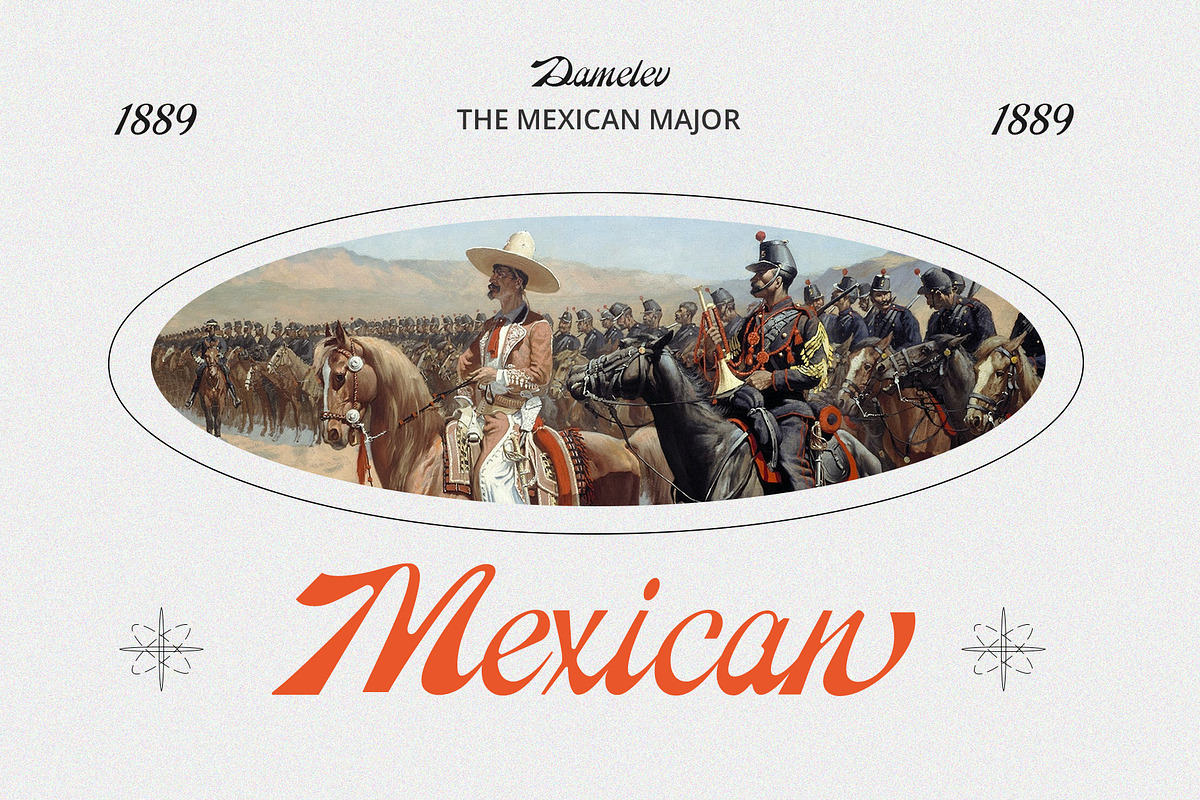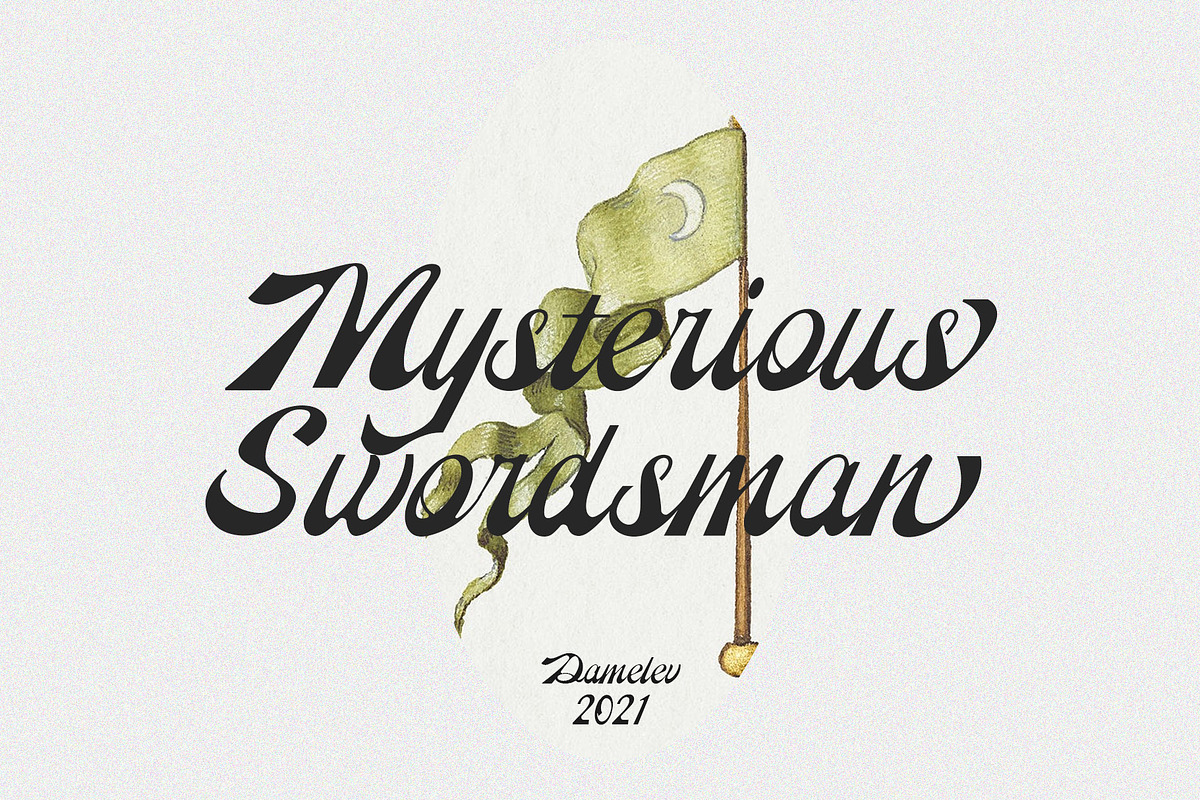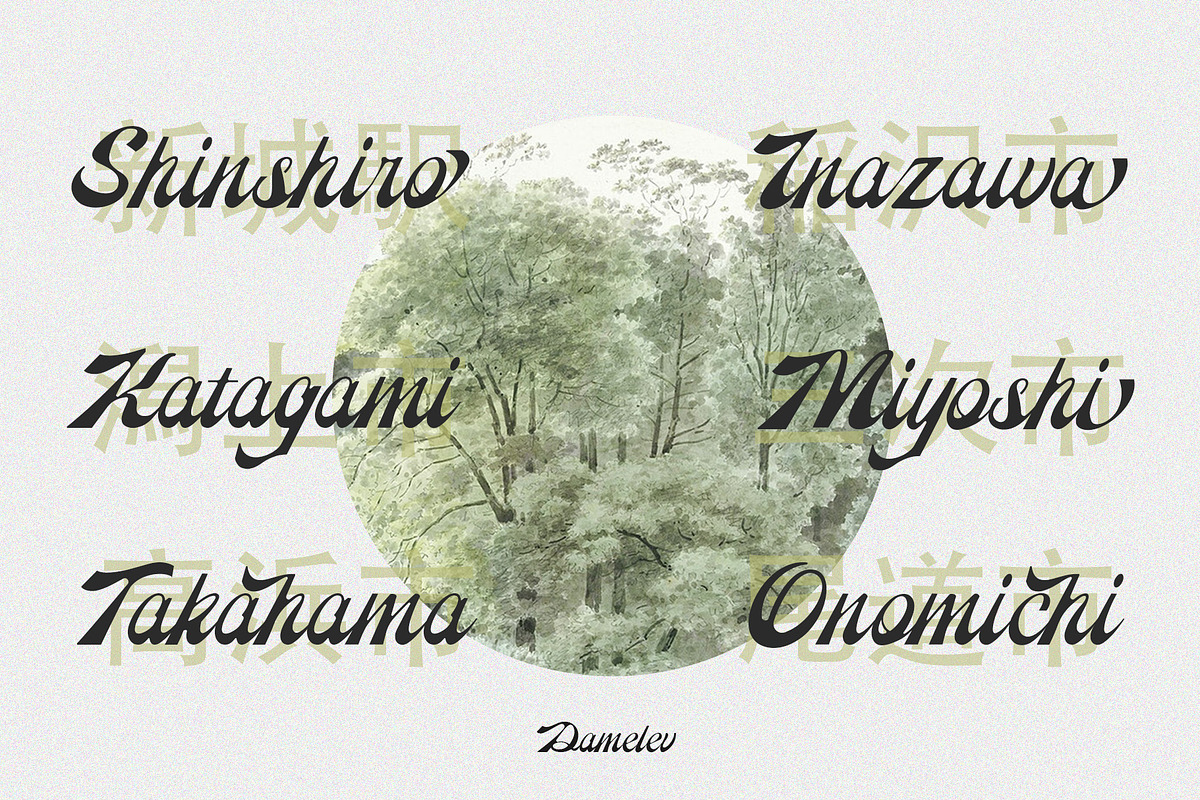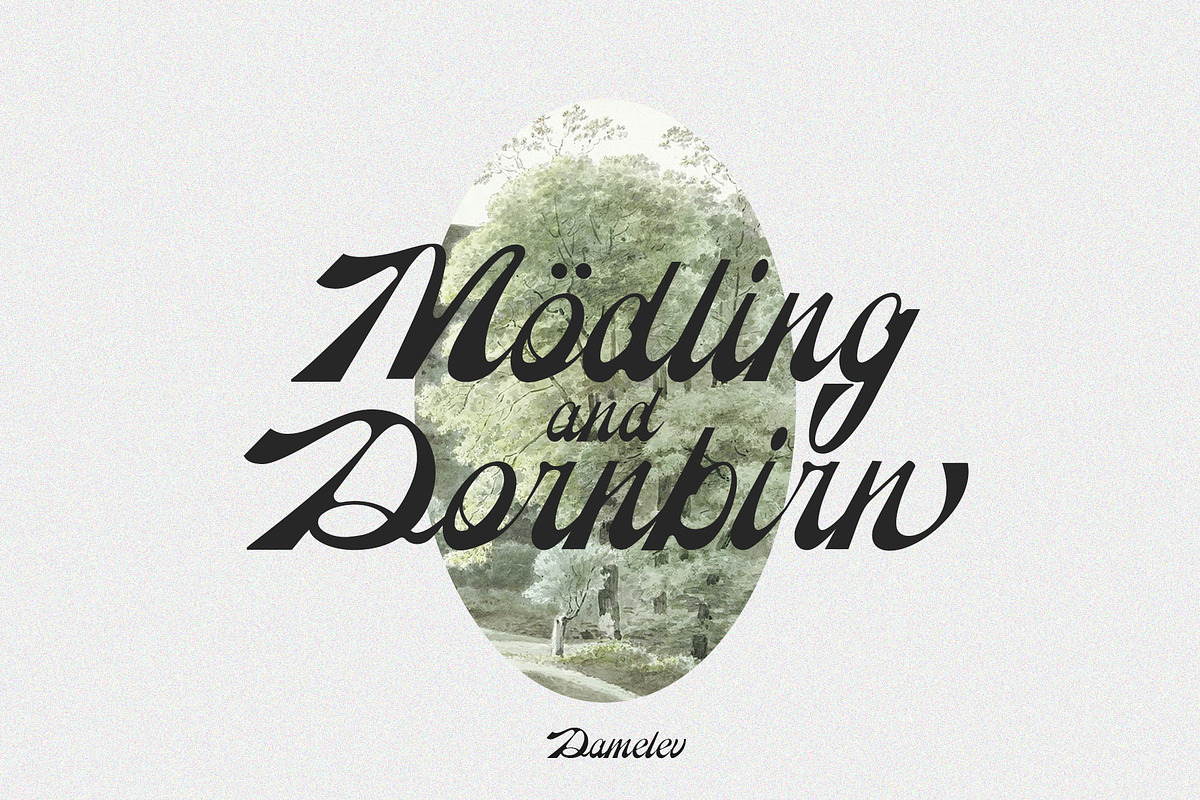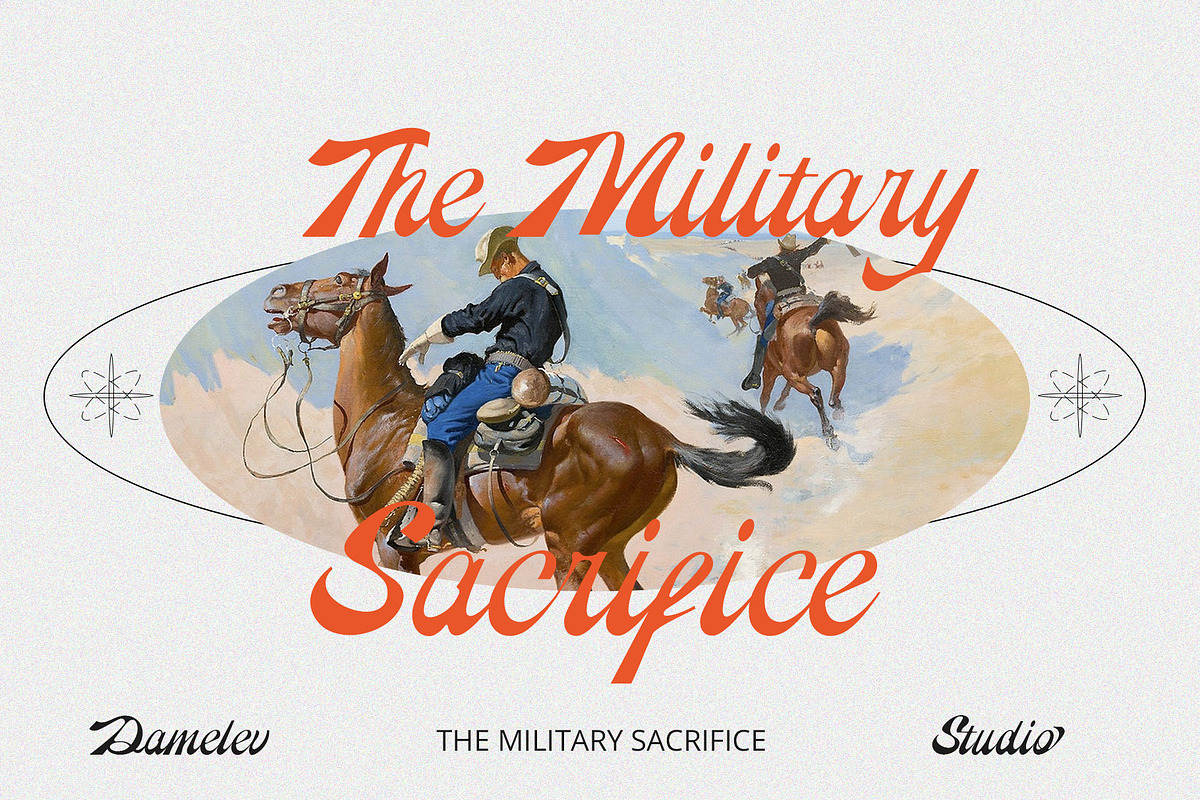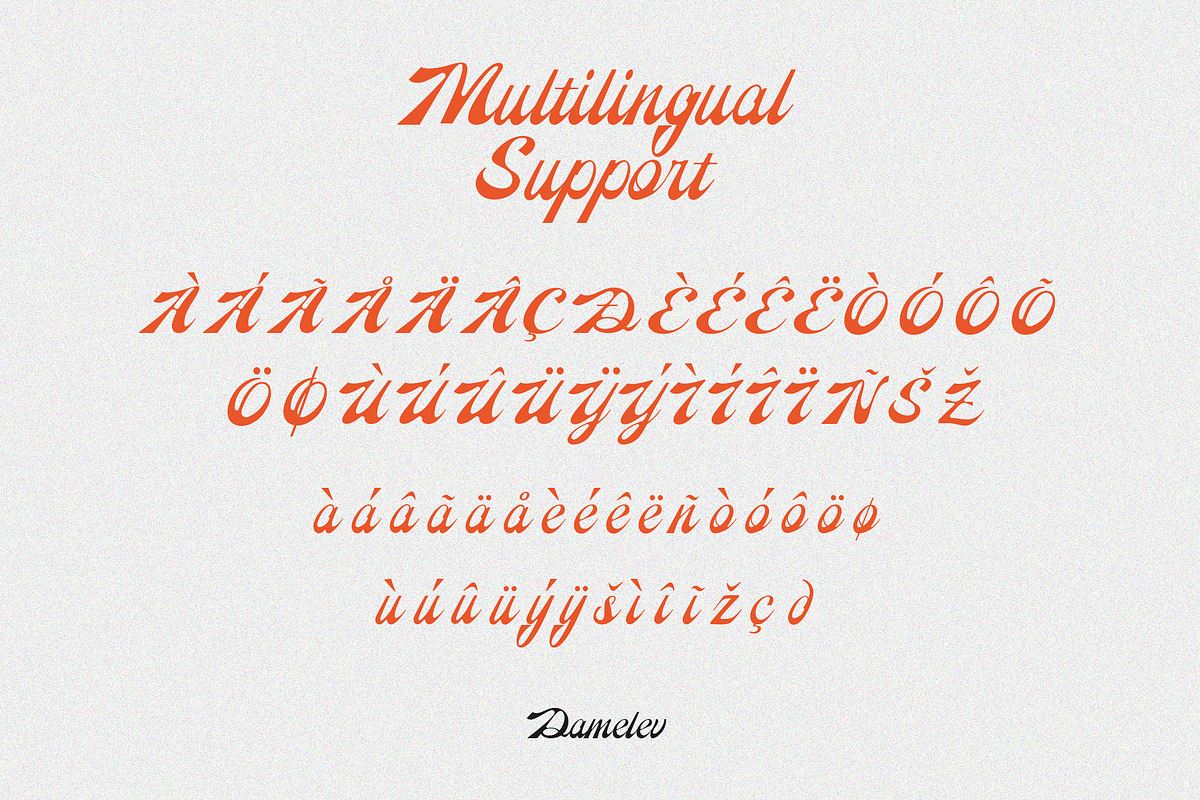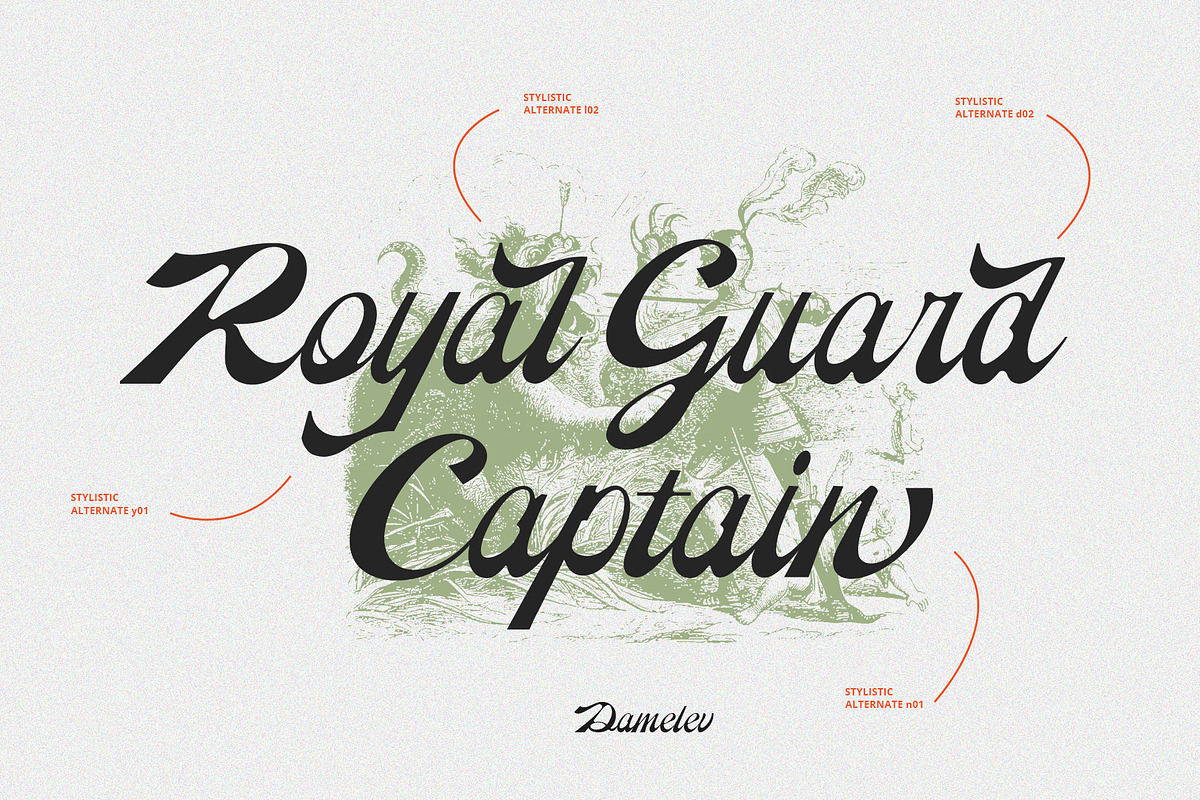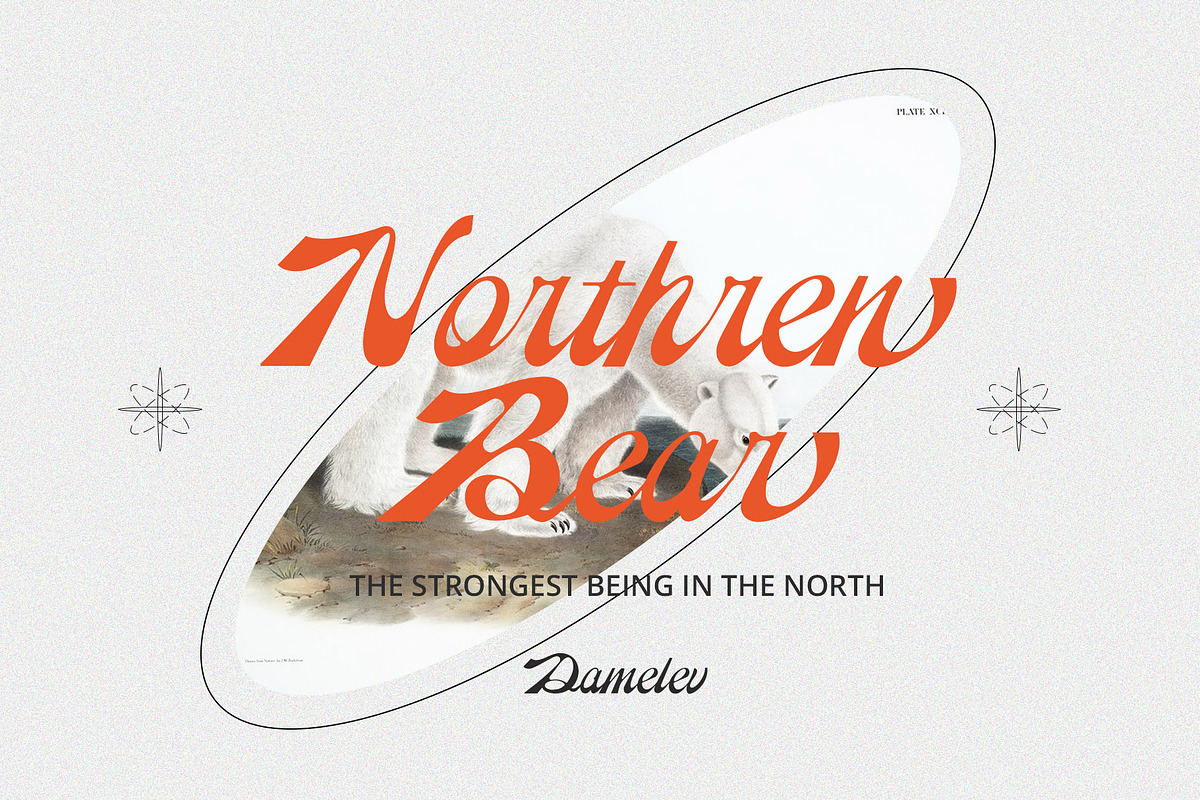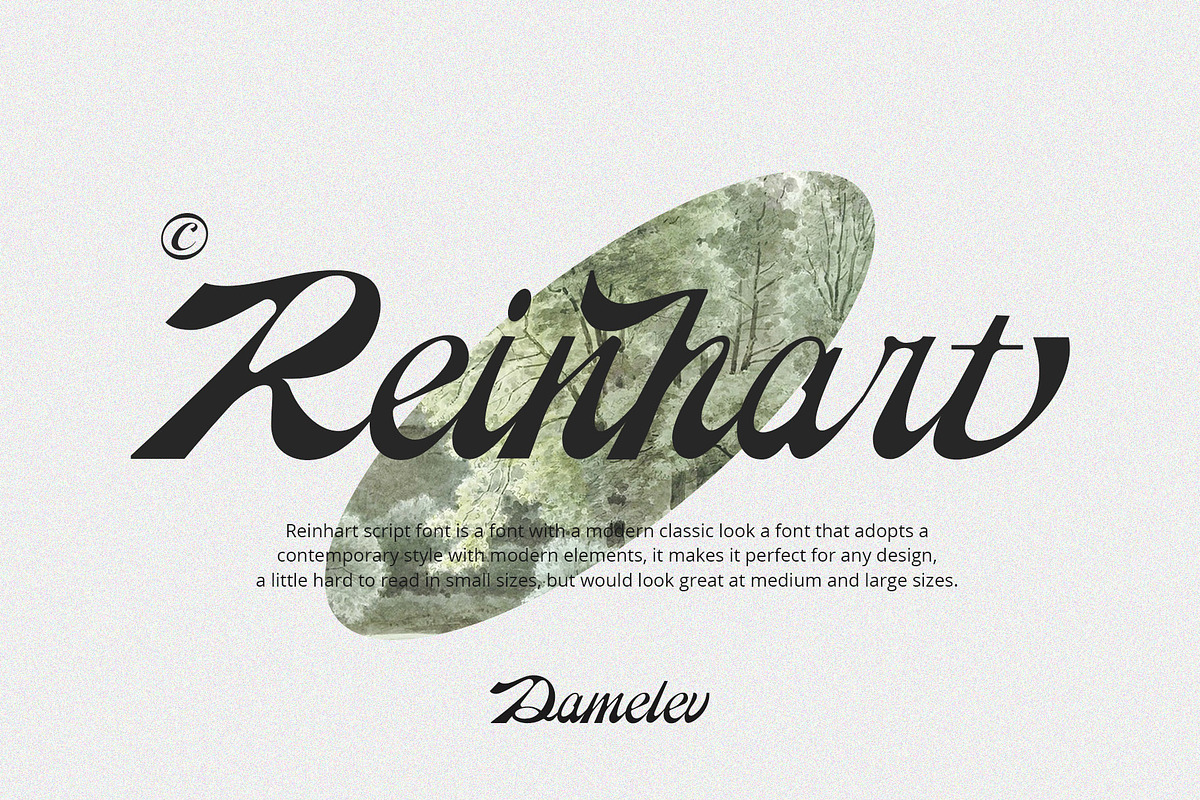
Reinhart Script
Reinhart script font is a font with a modern classic look a font that adopts a contemporary style with modern elements, it makes it perfect for any design, Reinhart script font a little hard to read in small sizes, but would look great at medium and large sizes. Reinhart has pretty much alternatives glyphs choice in the pack and support multilingual.